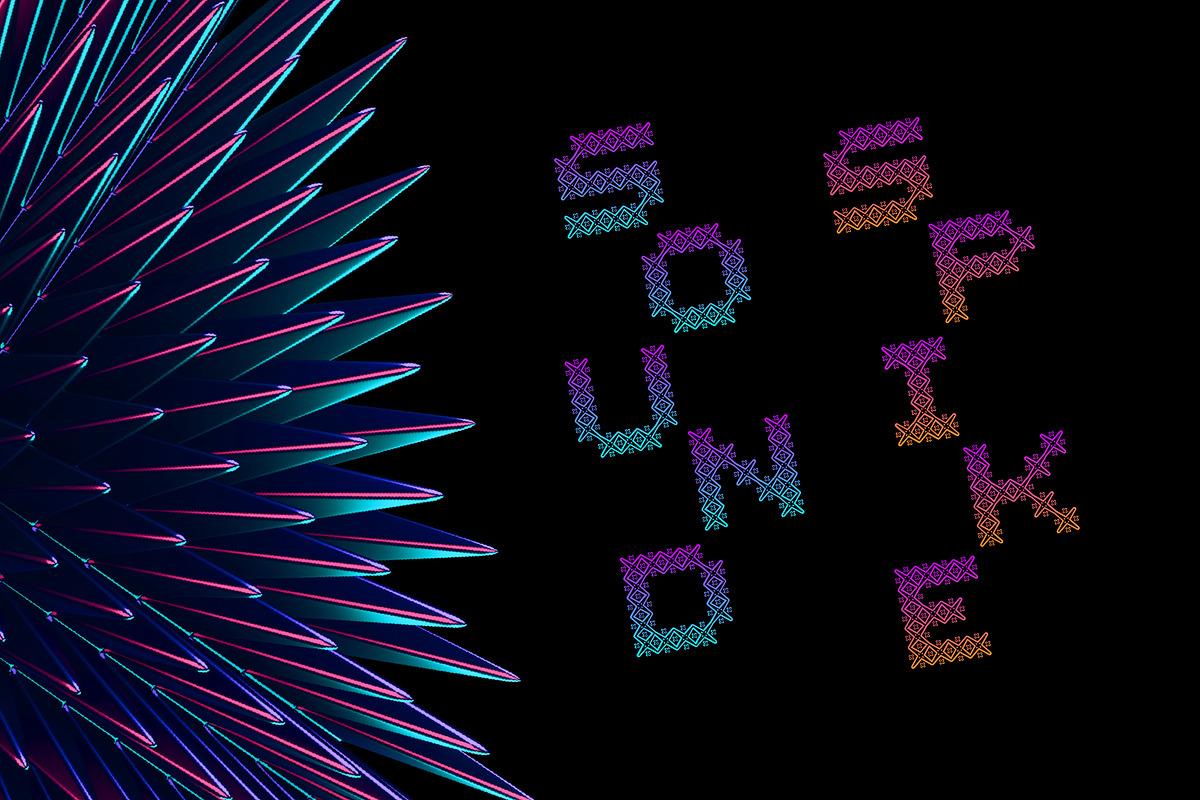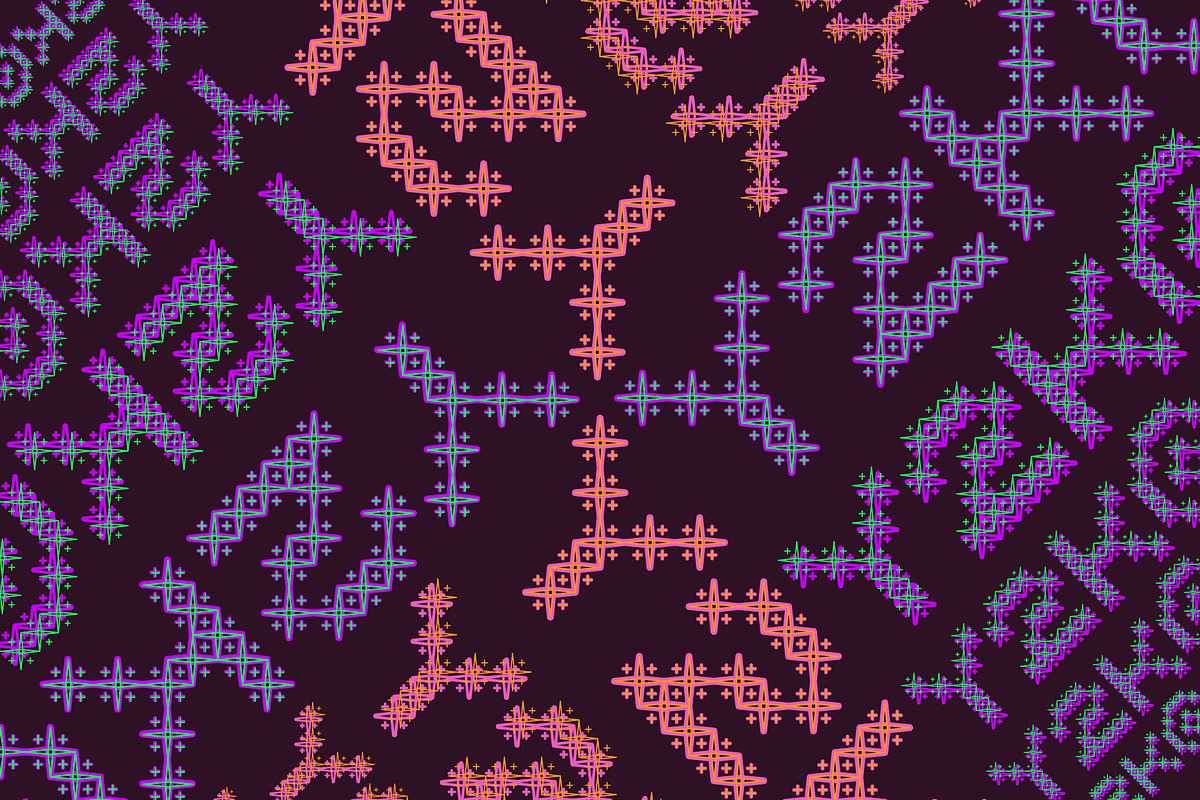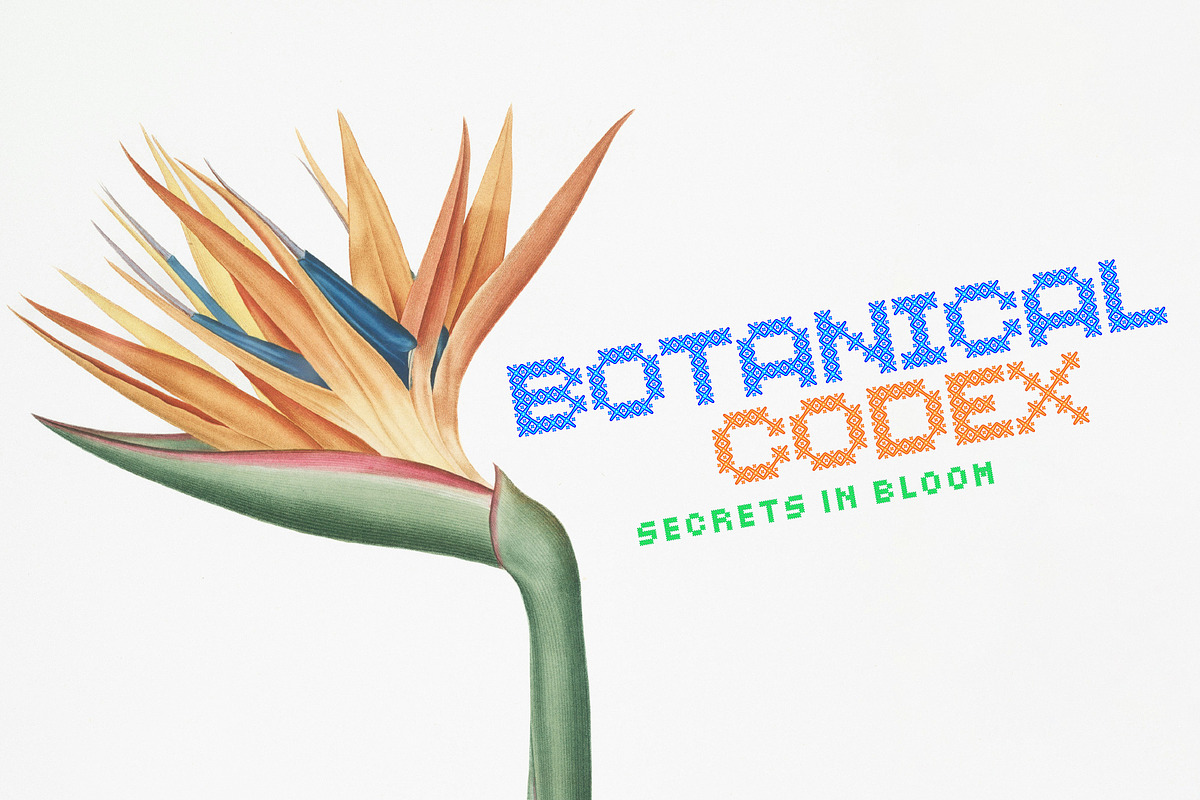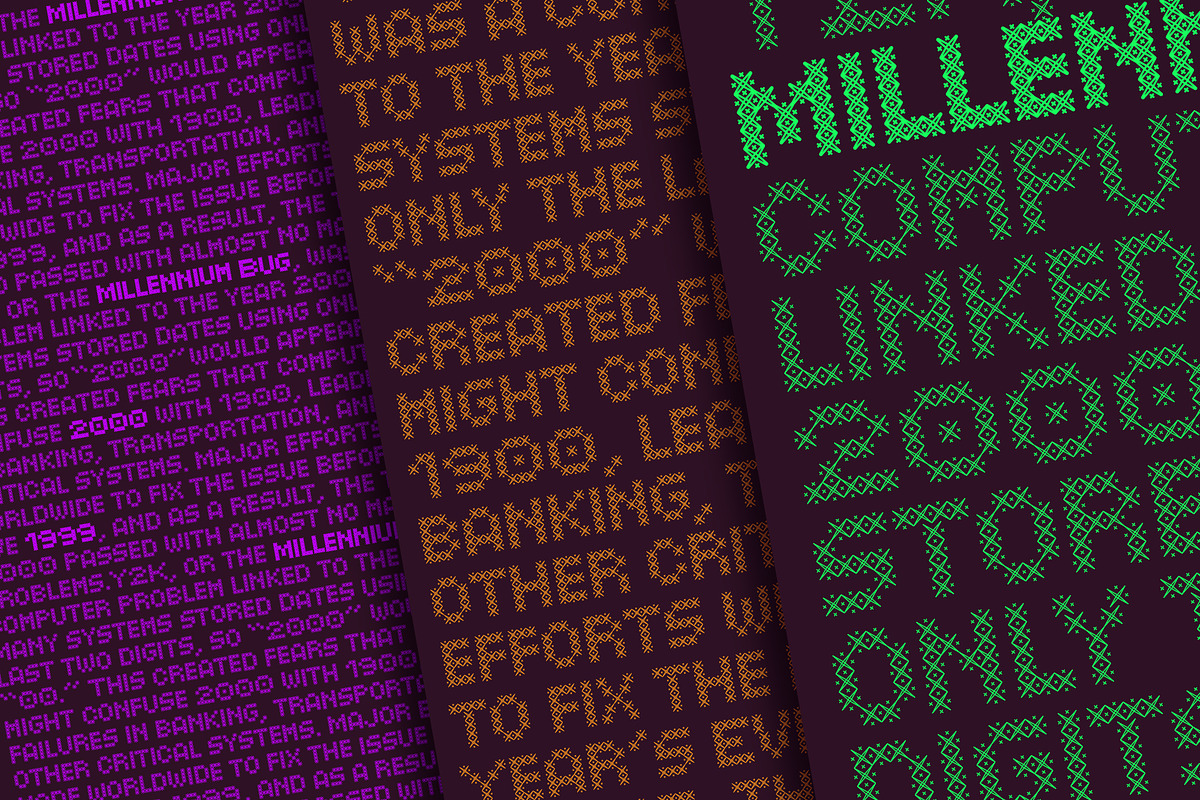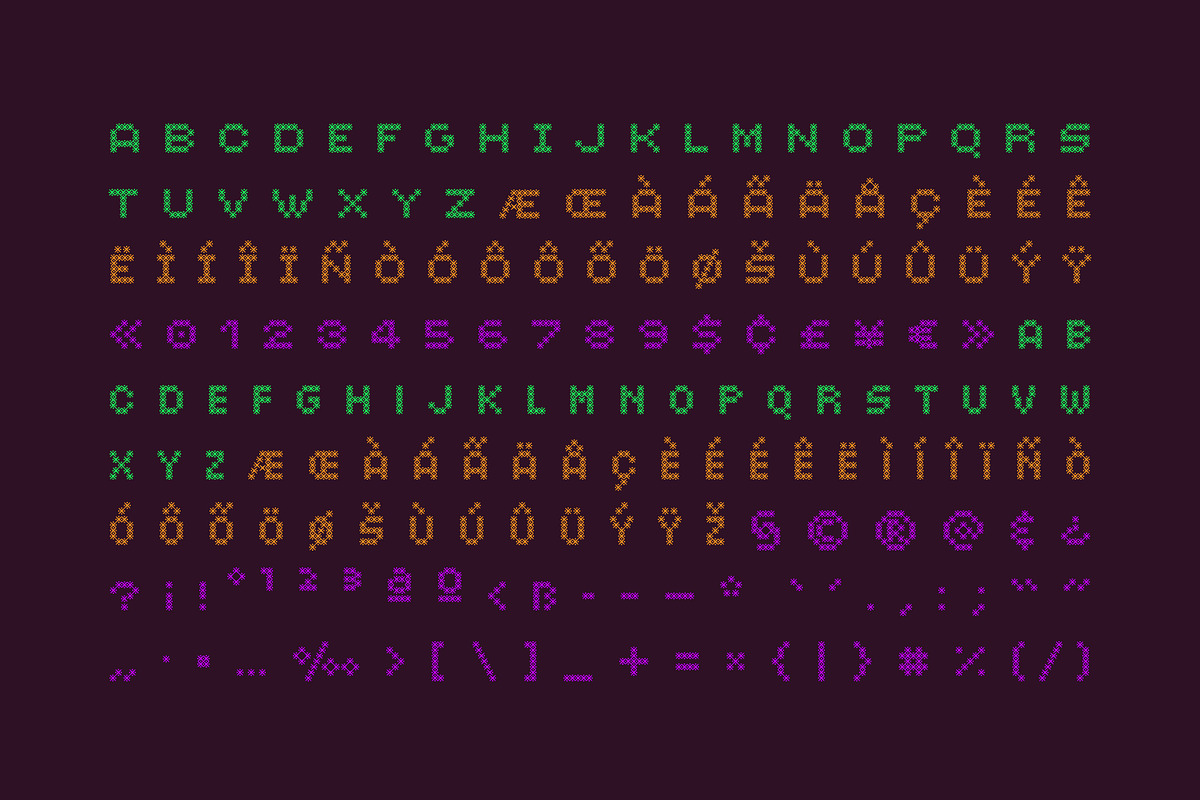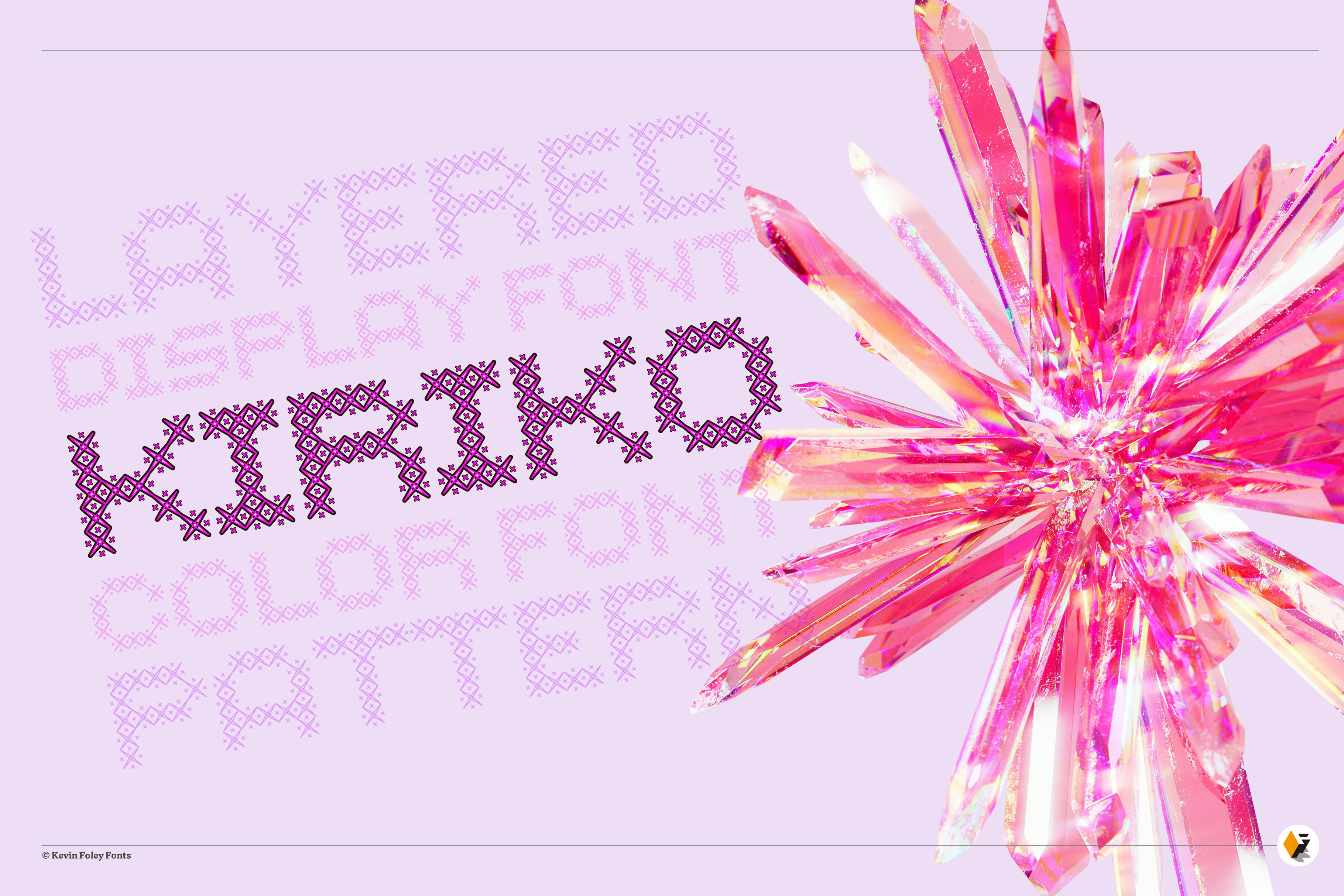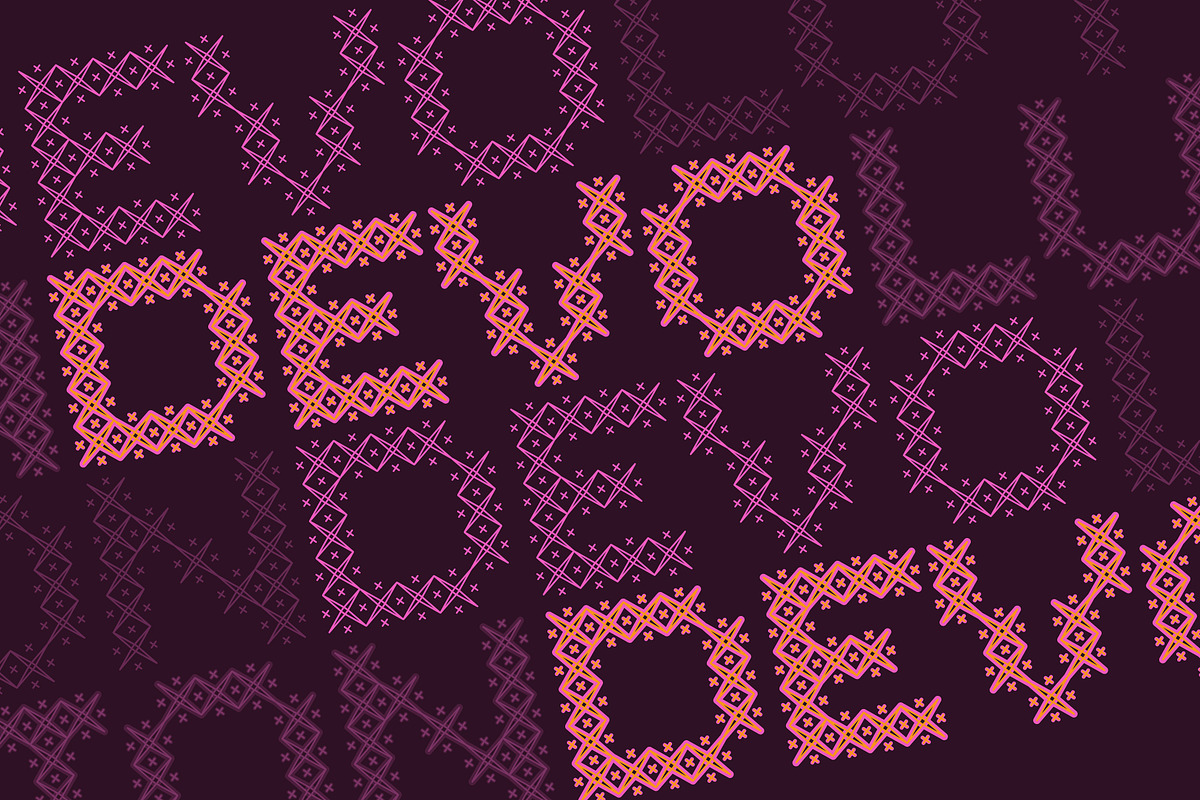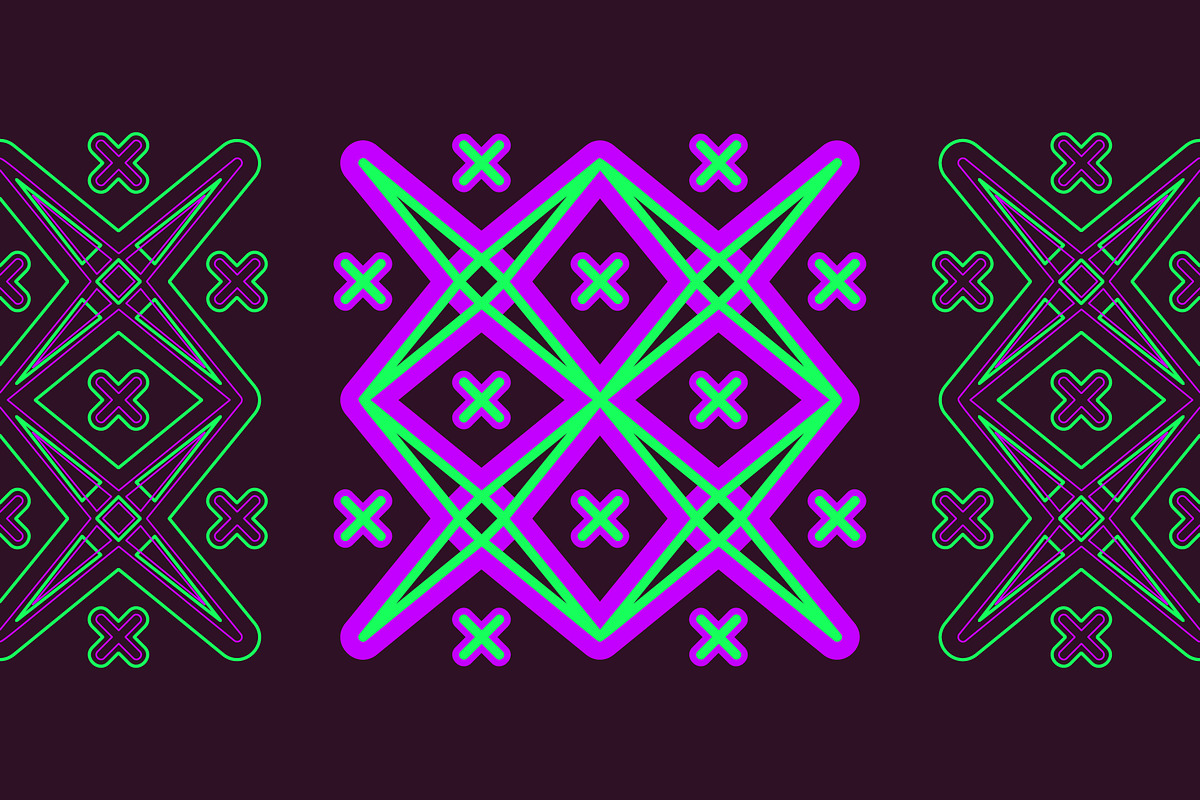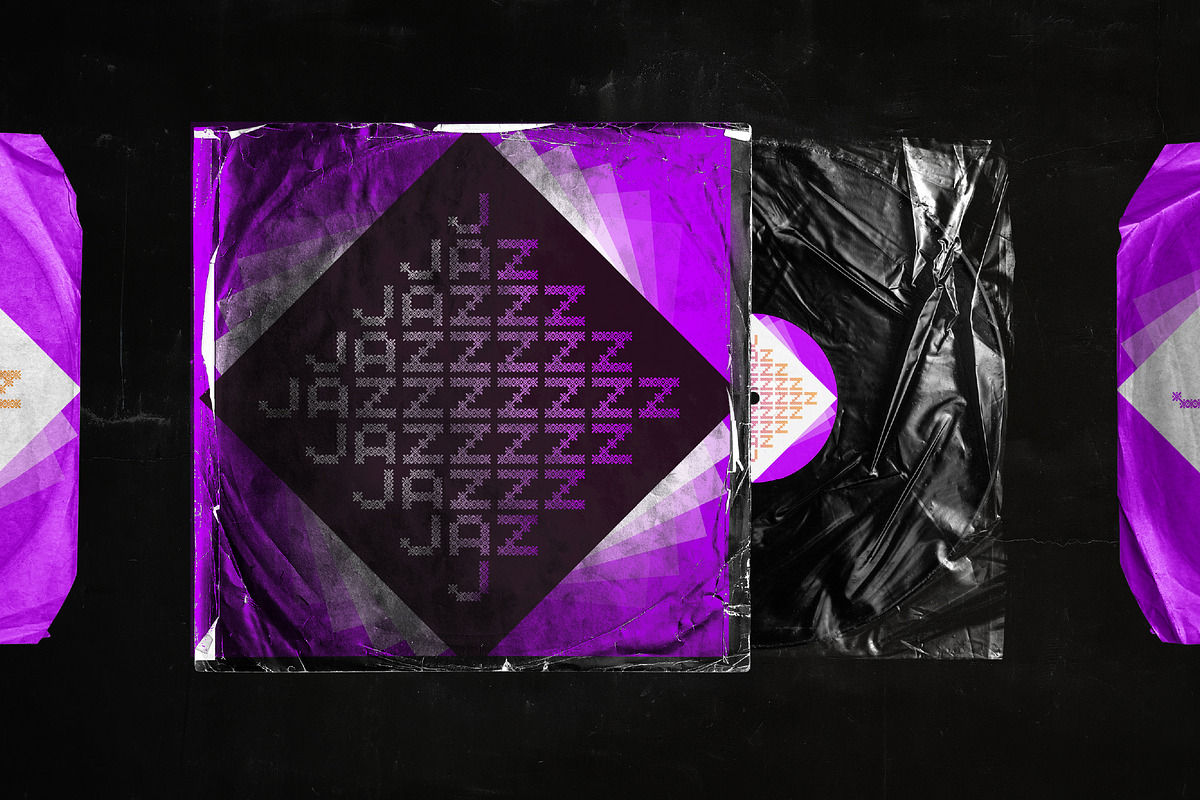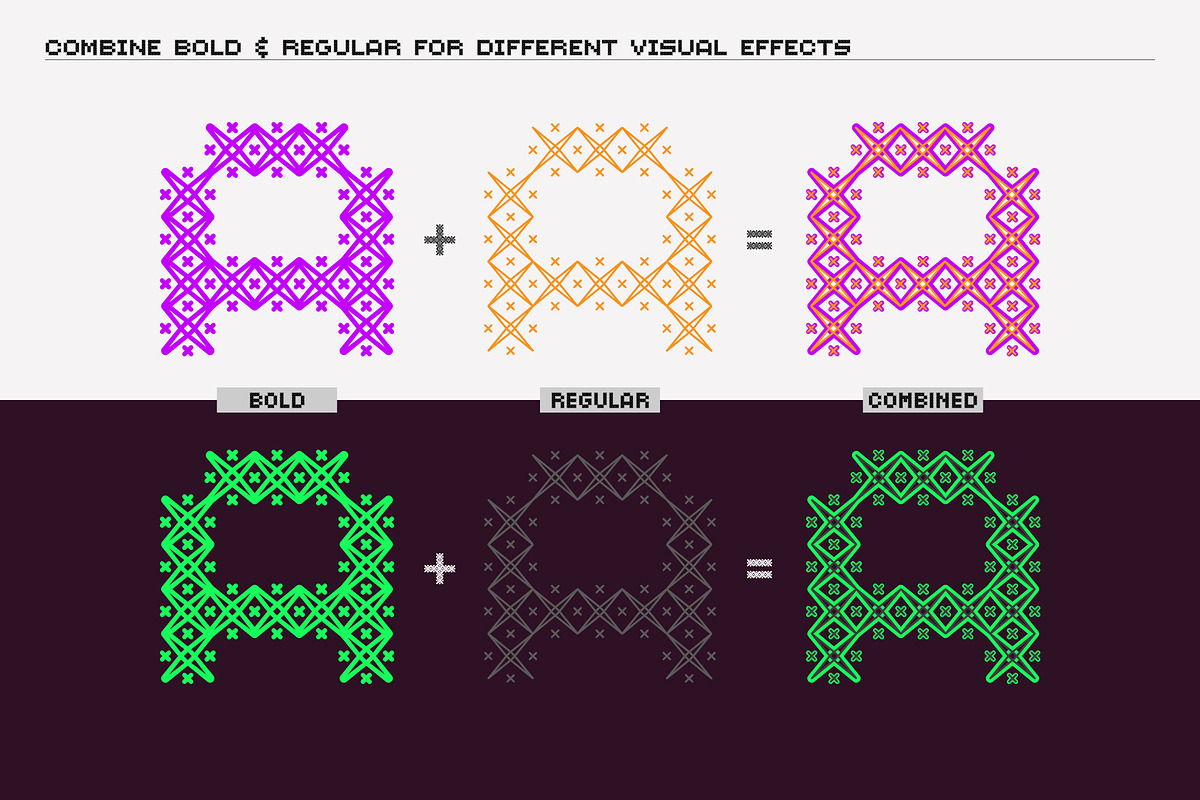
Kiriko – Layered Pattern Font
Meet Kiriko – a layered pattern font that creates amazing visual effects! ✨
Kiriko started life as an original title design for an article about a kiriko cut-glass artisan featured in Skyward, Japan Airlines' inflight magazine. Originally inspired by the intricate cut-glass patterns, what began as a few letters has developed into a complete display font that's perfect for creating eye-catching designs.
Here's where it gets fun: The cross-hatch pattern works with two weights that layer together perfectly. Using different colors for the Regular and Bold weights, you can create custom visual effects that look way more complex than they actually are to make!
- Regular and Bold weights that stack perfectly
- Standard and condensed character widths mapped to upper and lowercase keys
- All-caps design with geometric cross-hatch patterns
- Basic multilingual support
Kiriko brings contemporary pop energy with a futuristic, digital feel. The geometric patterns and layering capabilities make it perfect for bold headlines, social media graphics, posters, branding projects, and anywhere you want serious visual impact.
Perfect for: Logo design, social media posts, poster design, branding, merchandise, and any project where you want to grab attention and stand out from the crowd.
International Language Support: Kiriko includes extended Latin characters for multilingual support, covering major Western and Central European languages:
Western & Central European: À Á Ã Ä Å Æ Ç È É Ê Ë Ì Í Î Ï Ñ Ò Ó Ô Õ Ö Ø Ù Ú Û Ü Ý ß
Additional characters: Œ œ Š š ž – — ' ' " " • €
Languages Supported: Afrikaans, Catalan, Danish, Dutch, English, Finnish, French, German, Icelandic, Italian, Norwegian, Portuguese, Spanish, Swedish, and other Western European languages.